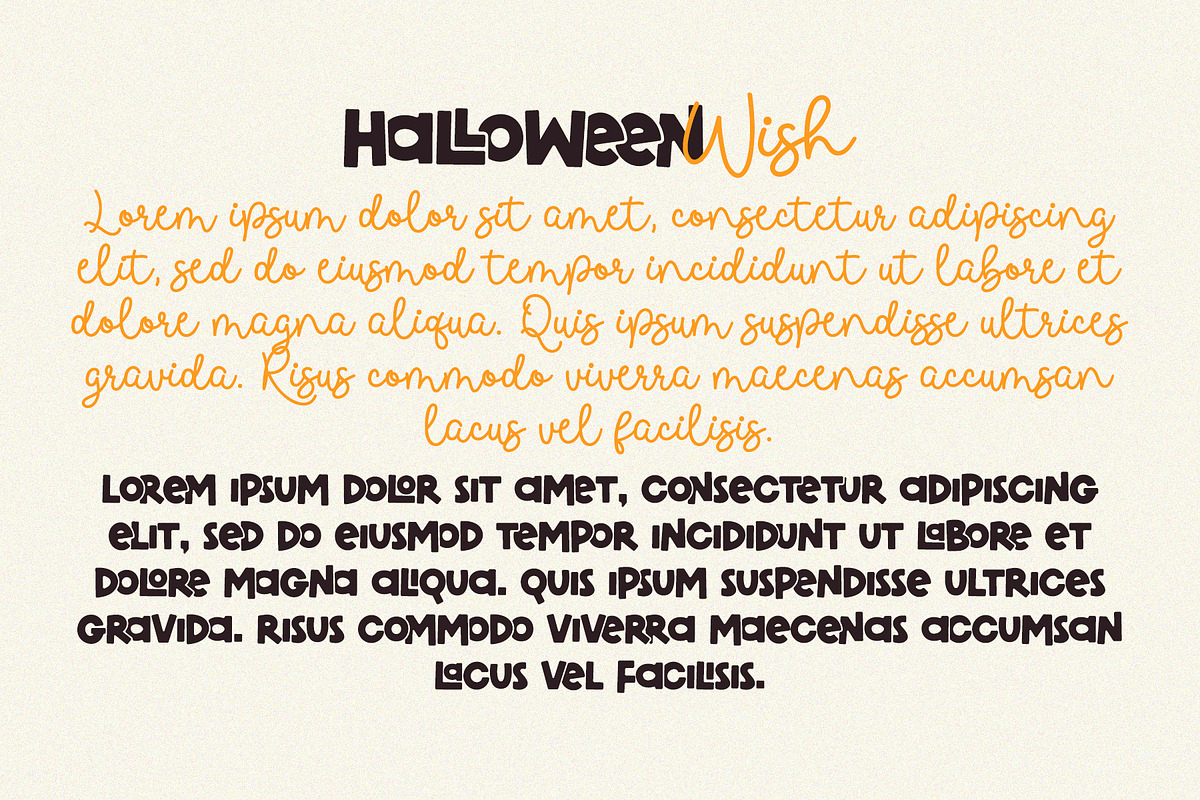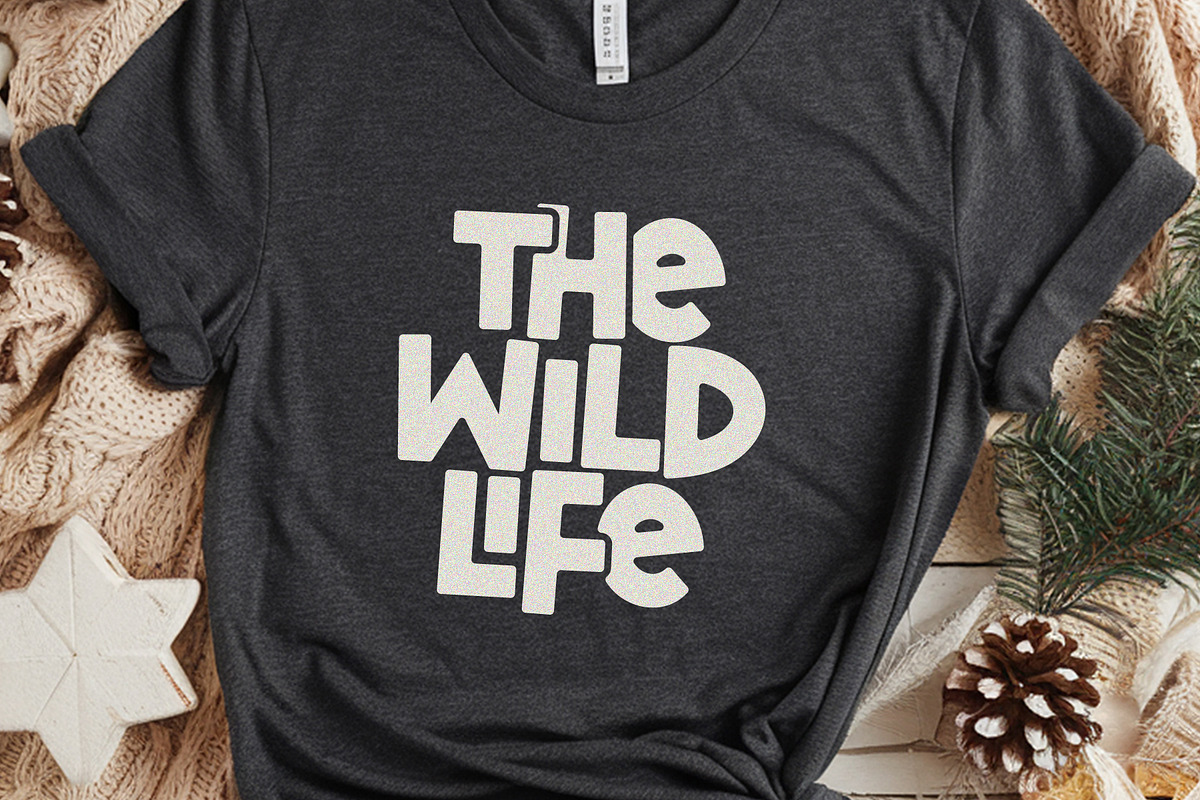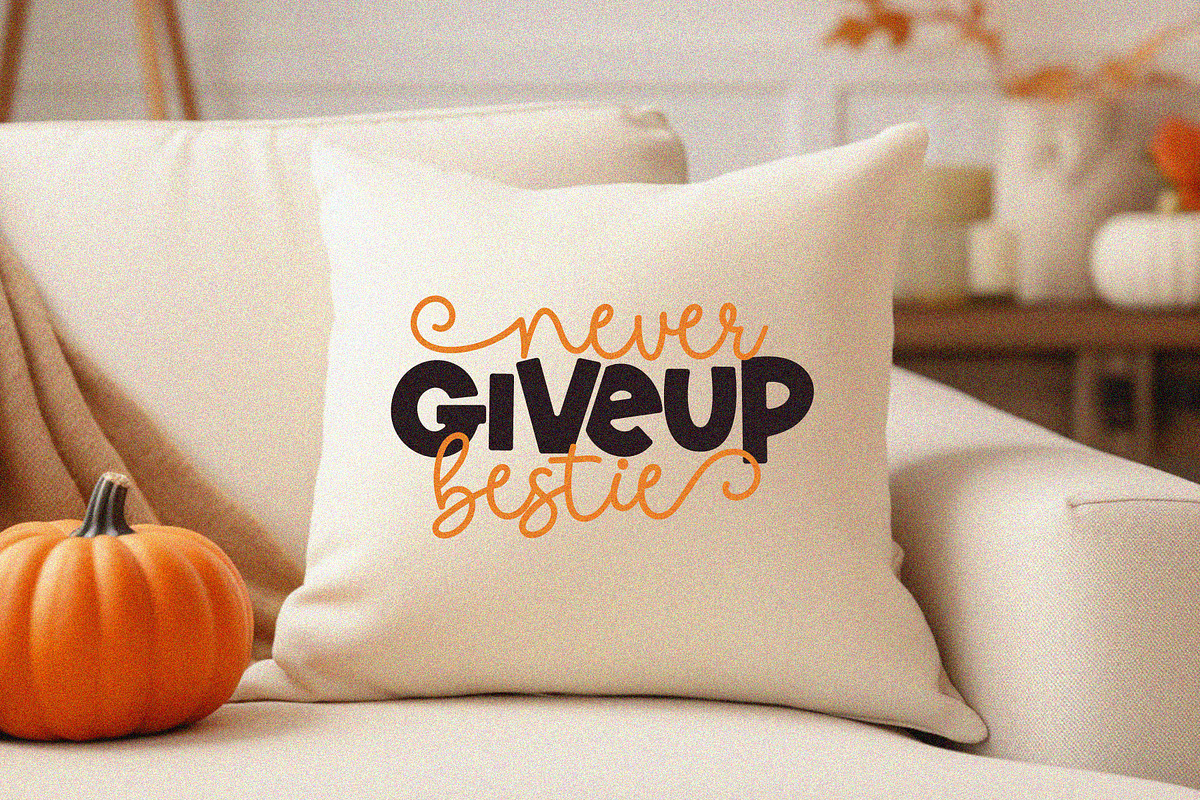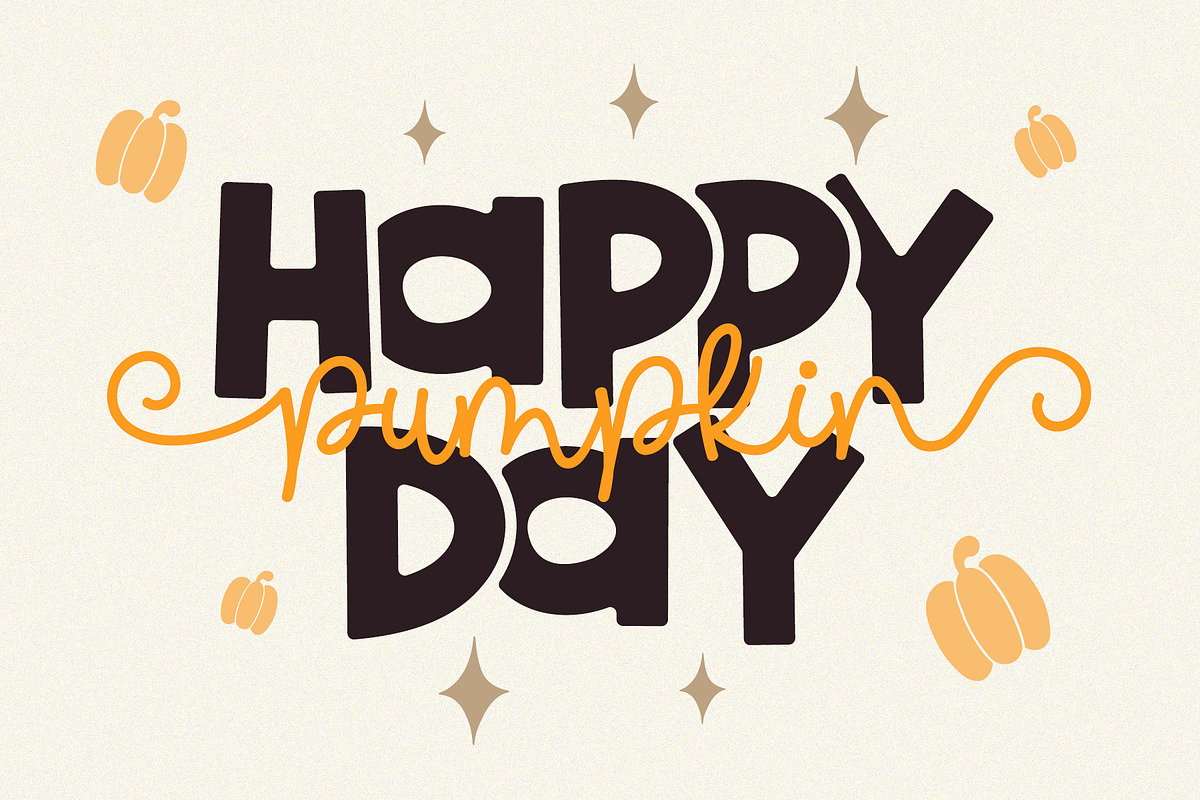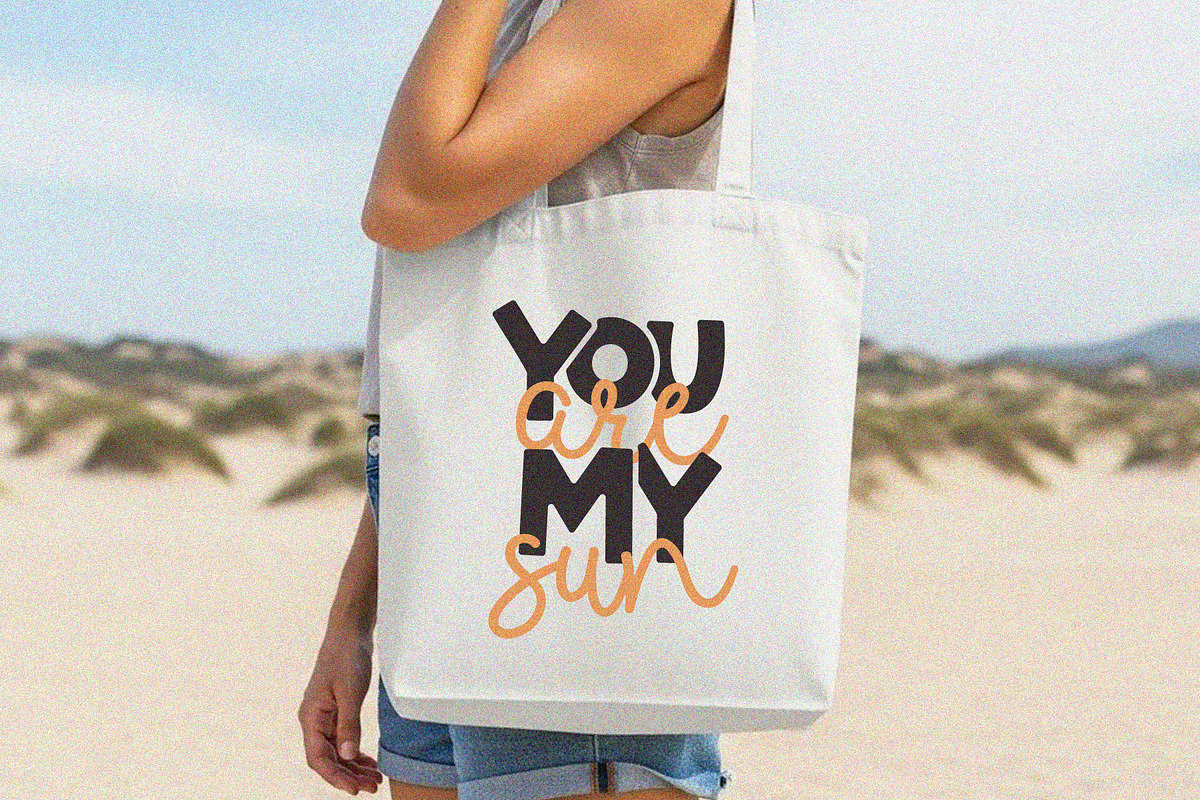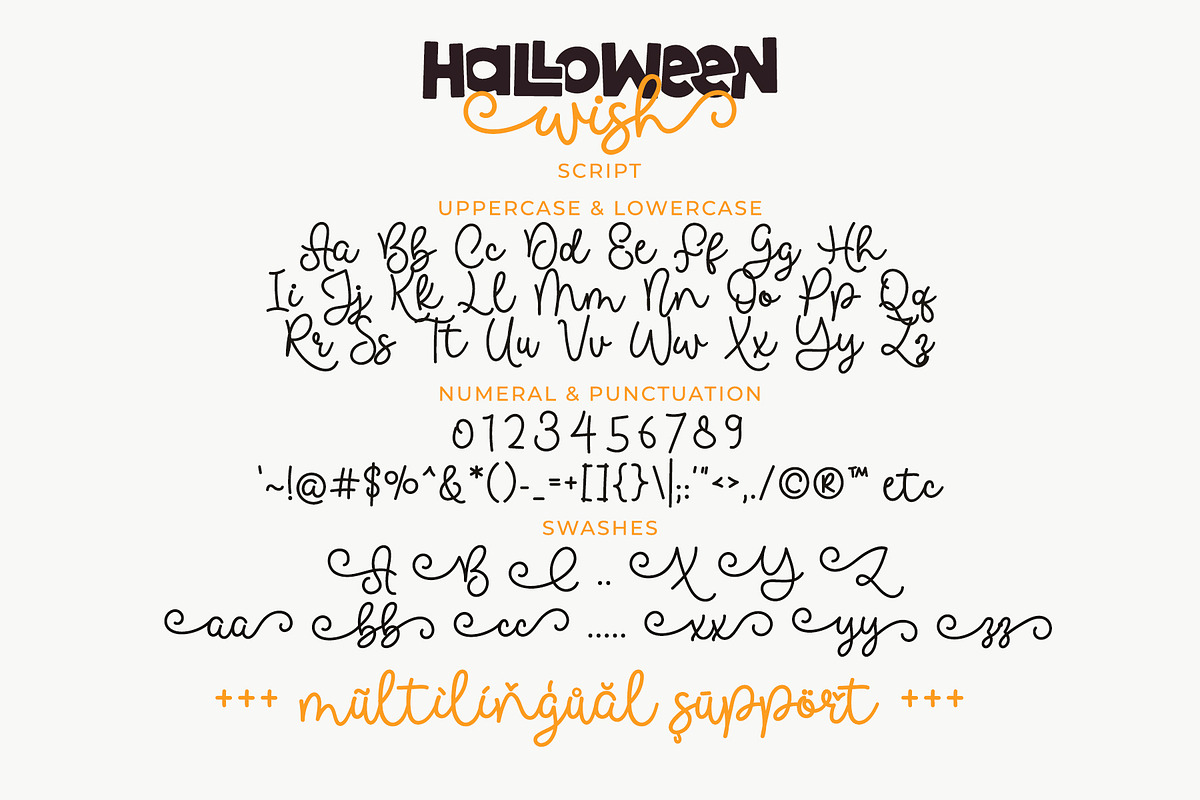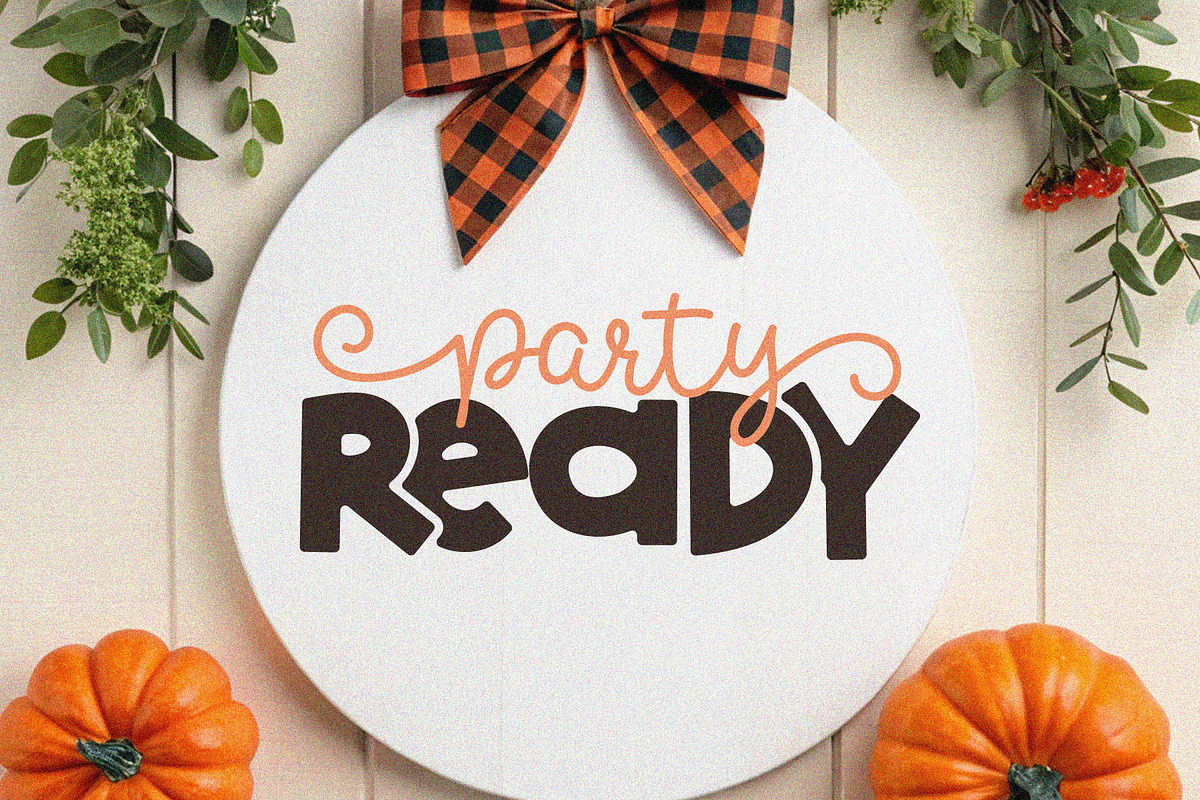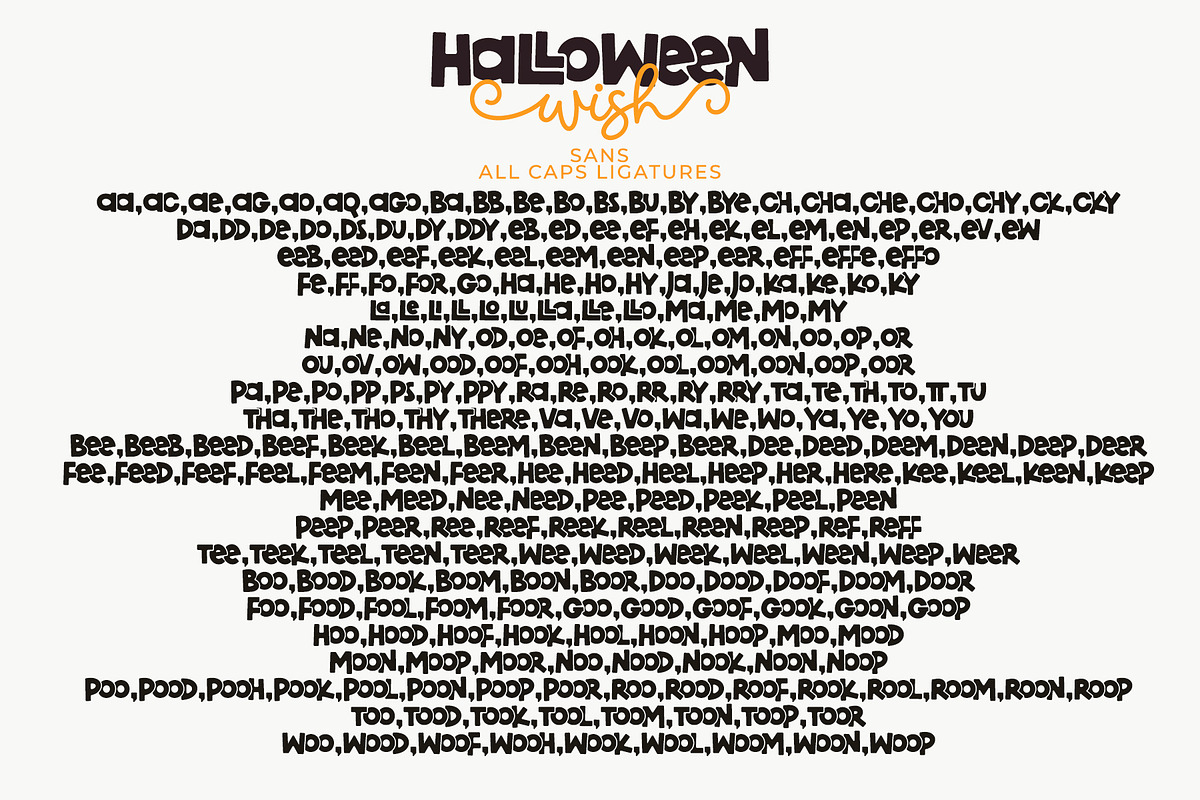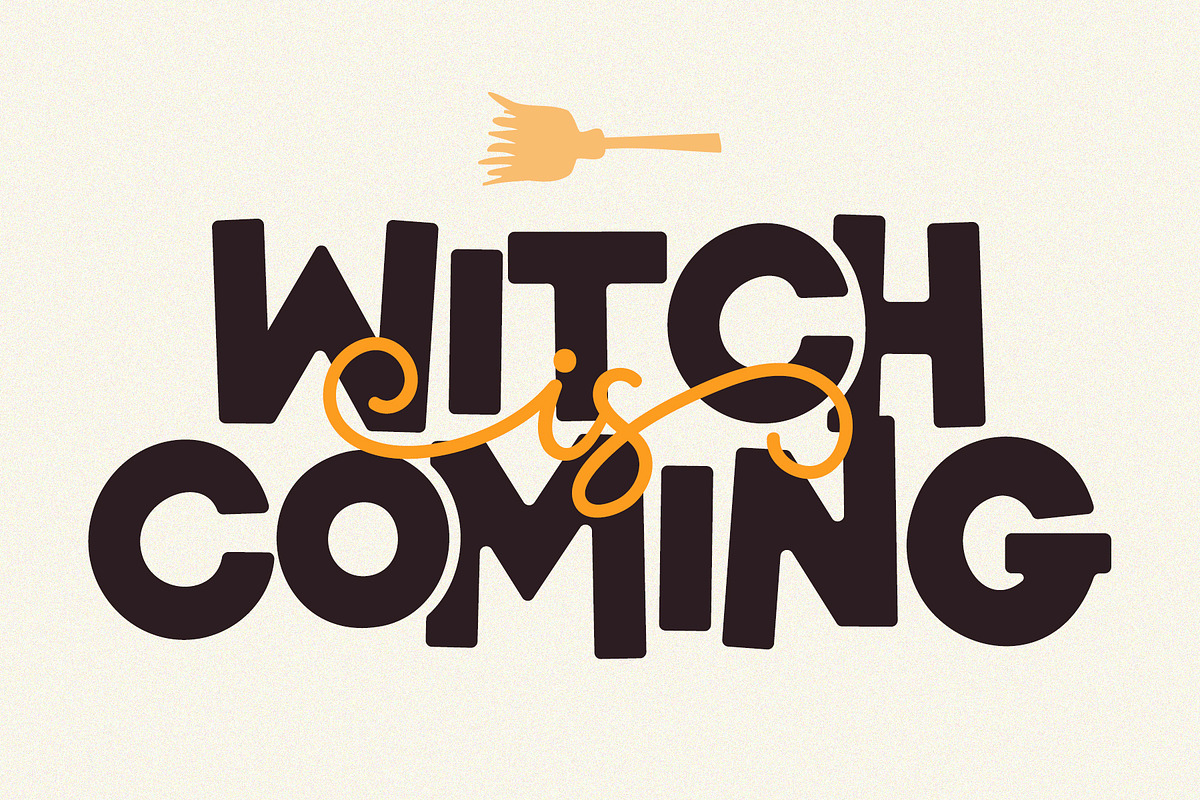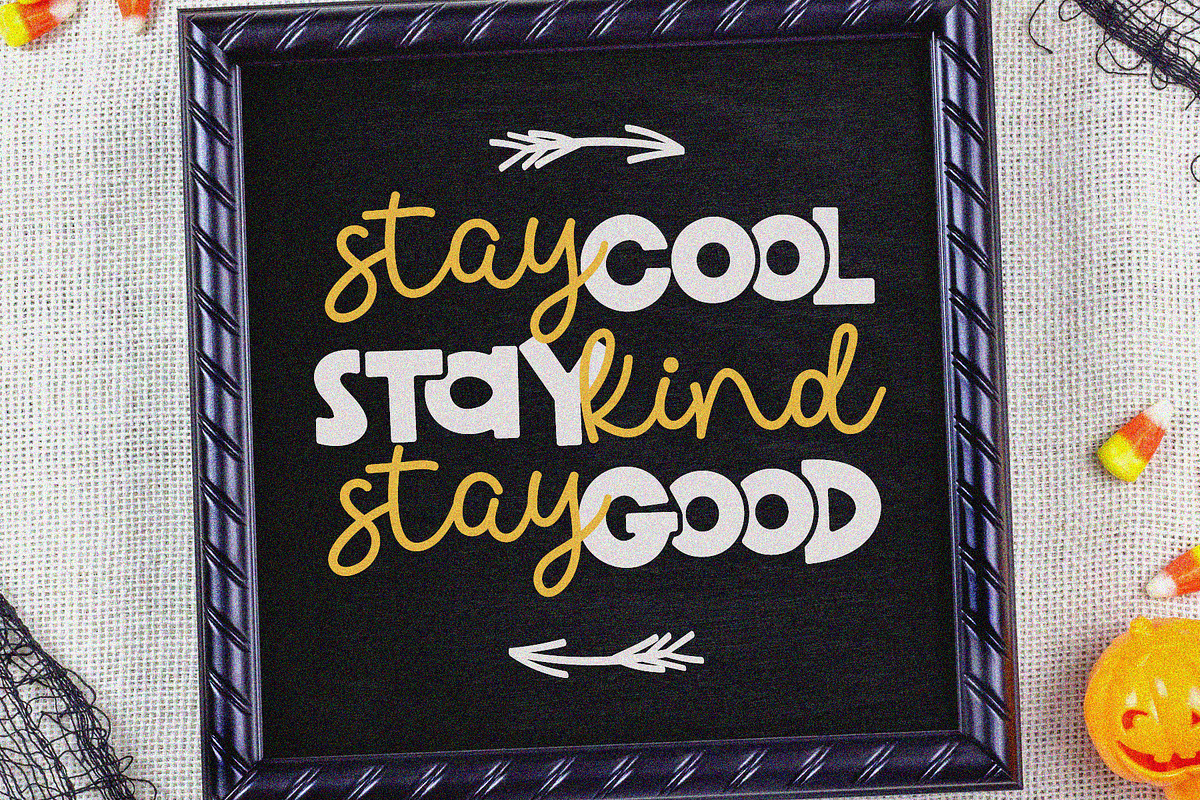
Halloween Wish Cute Fun Font Duo
Halloween Wish is sweet and fun font duo, combining monoline script font with swash, and all caps display font with tons of overlap ligatures. This font duo is effortlessly stylish, playful, and joyful.
Halloween Wish is lovely font for lots of design, such as Halloween Day, holiday, summer, school, branding, logo, crafting, sticker, and many more.
Halloween Wish Script: Uppercase & Lowercase (with swash)
Halloween Wish Sans: All Caps (with tons of ligatures)
Numeral and Punctuation
Most Multilingual Accent